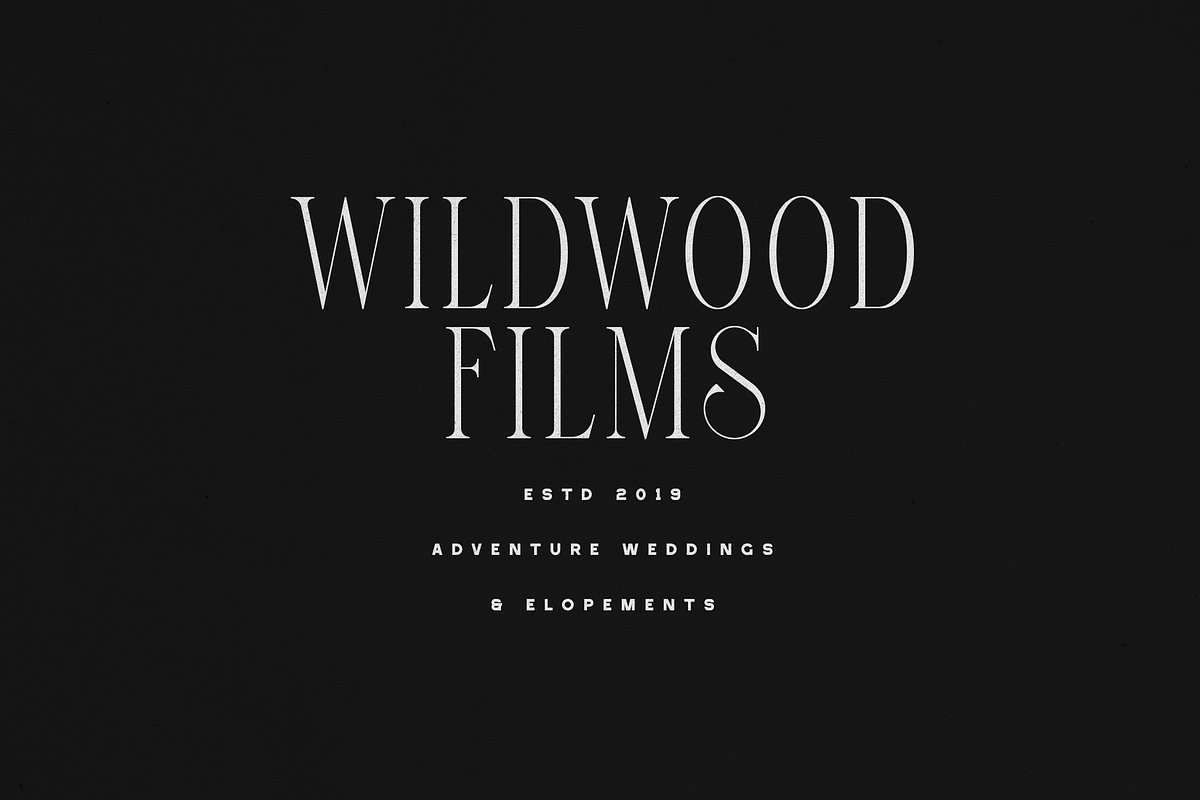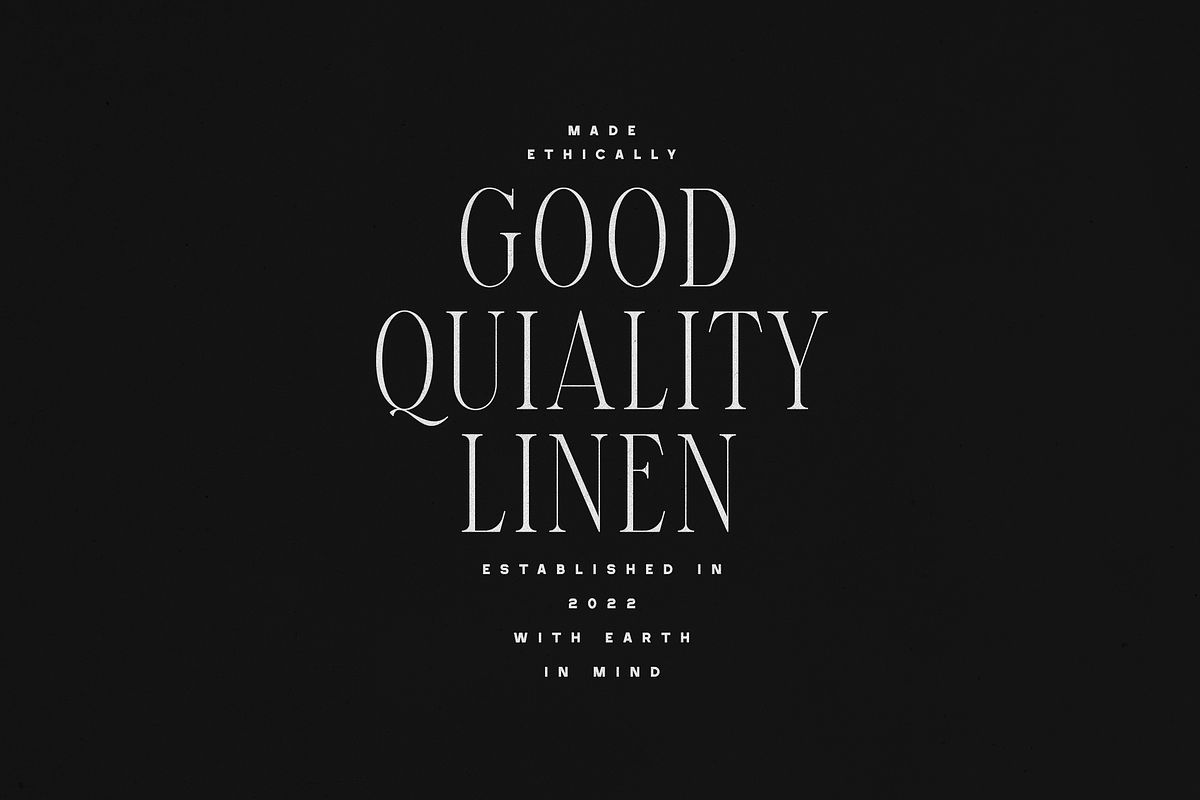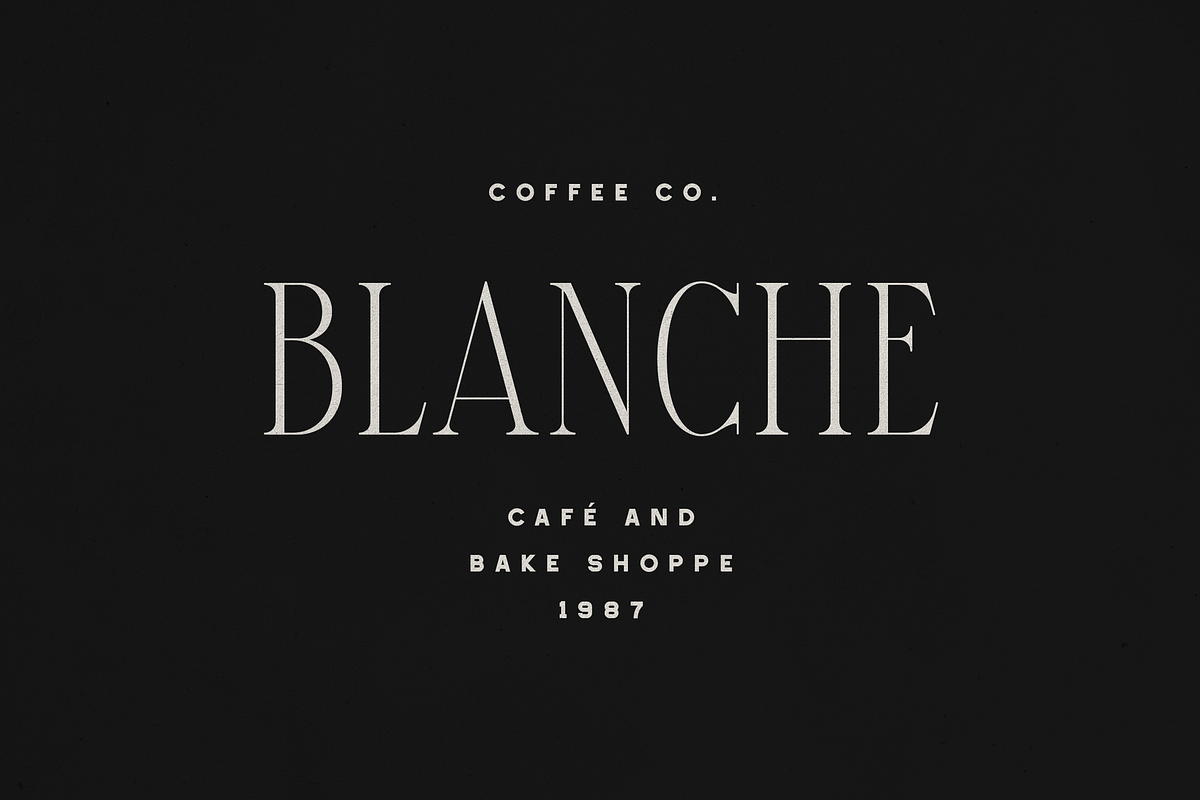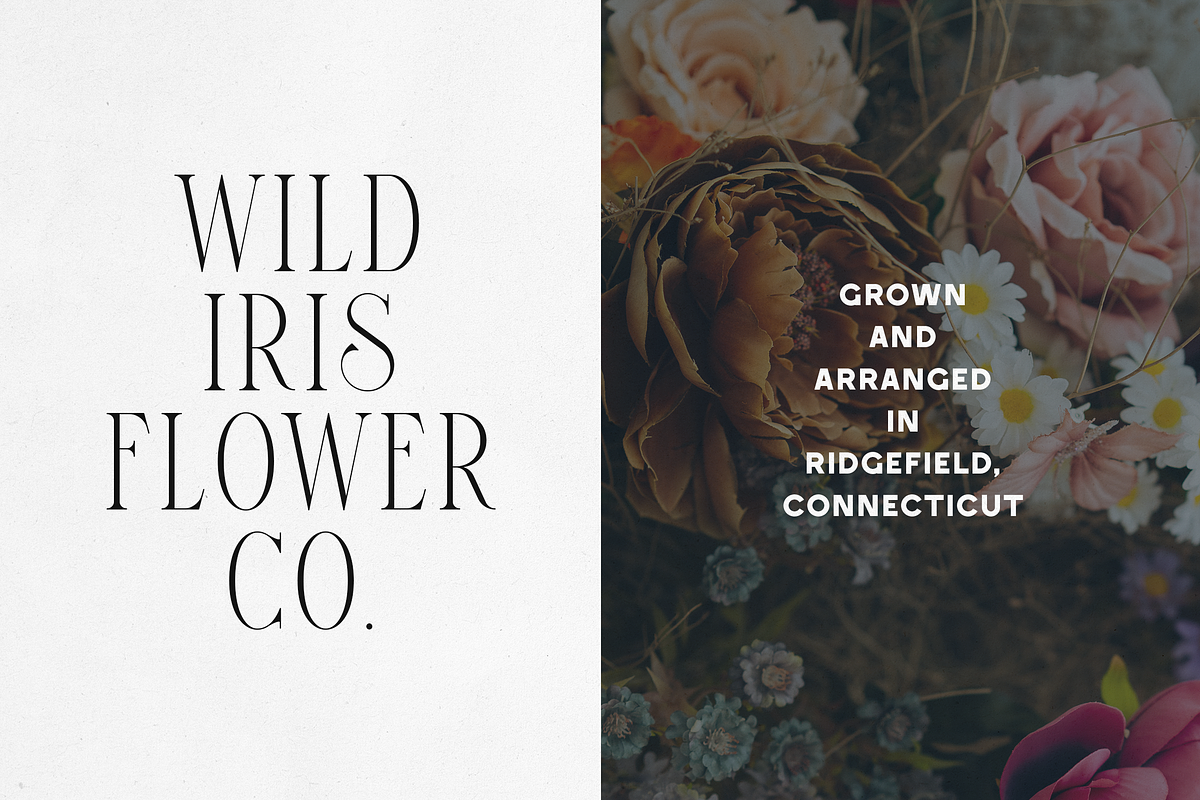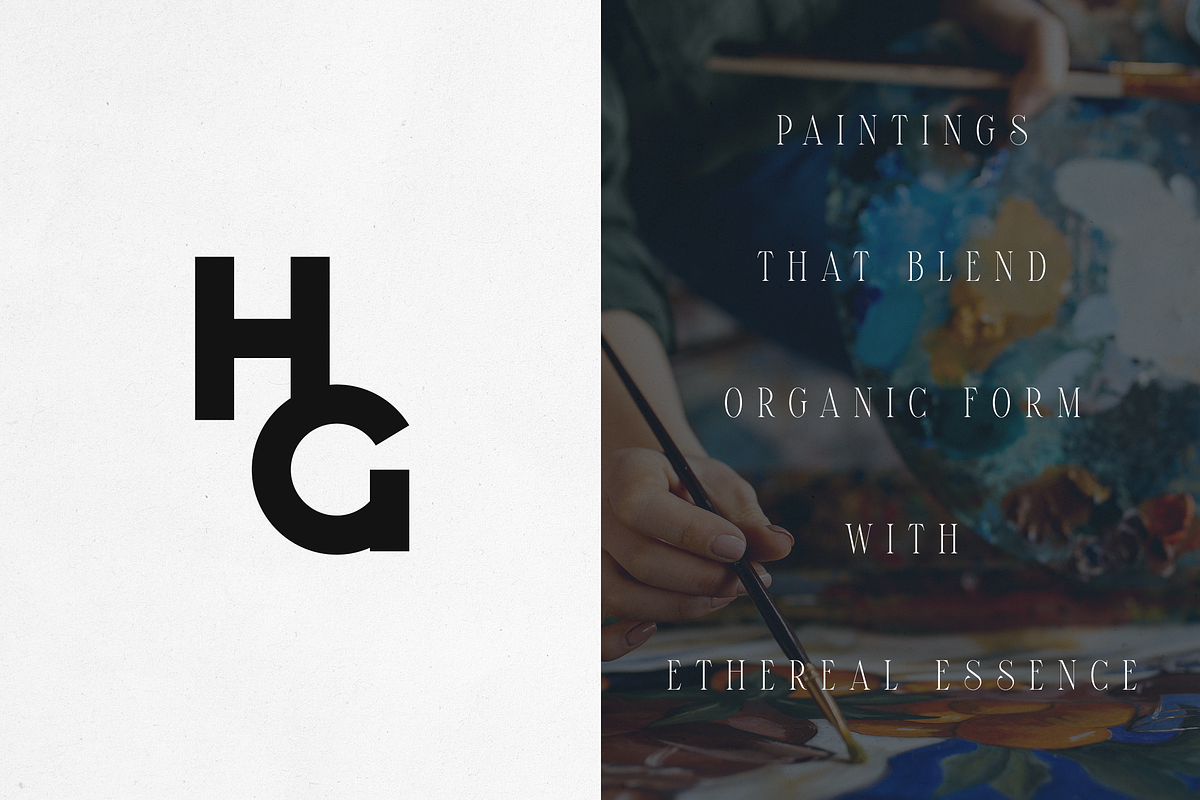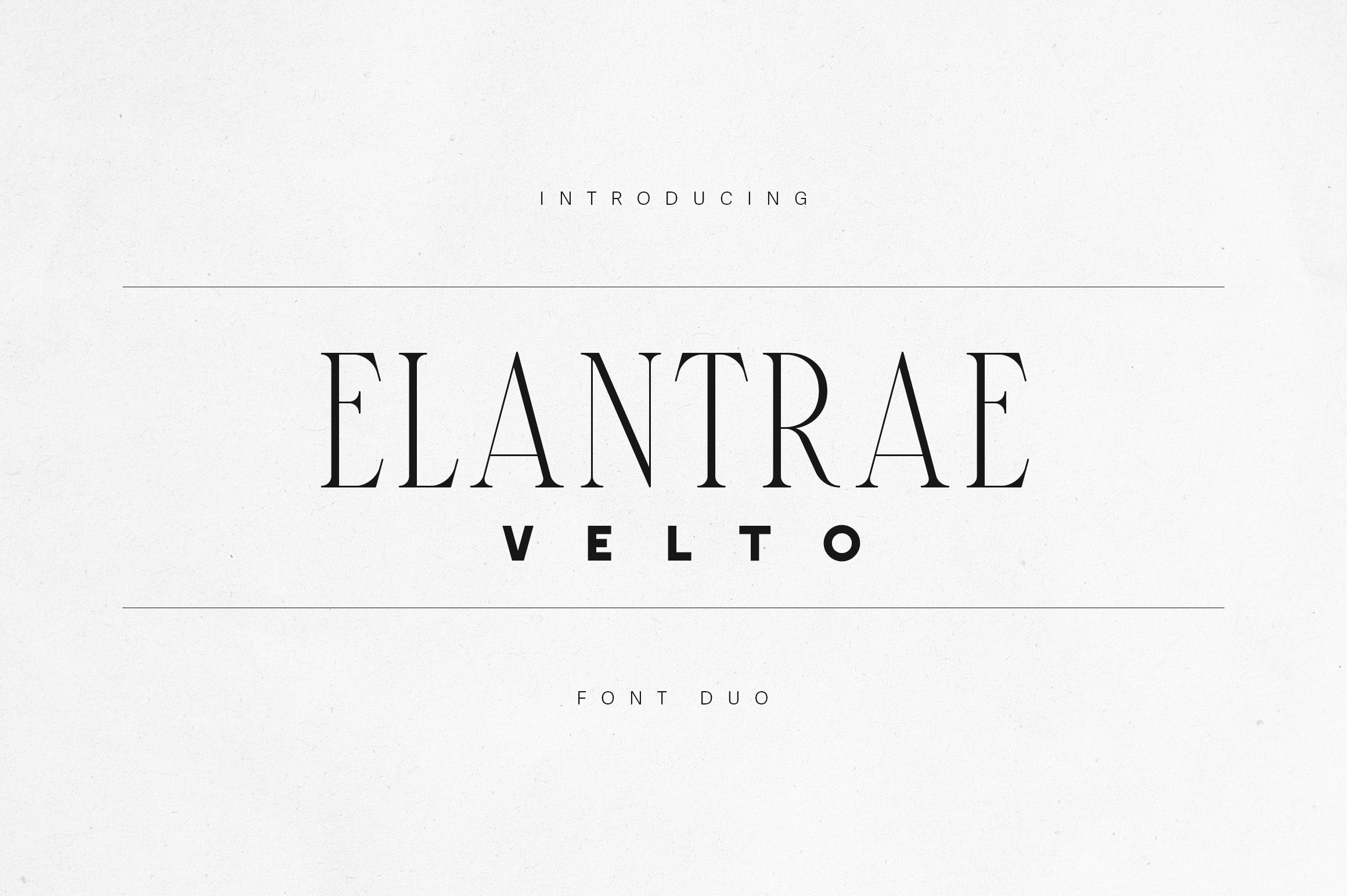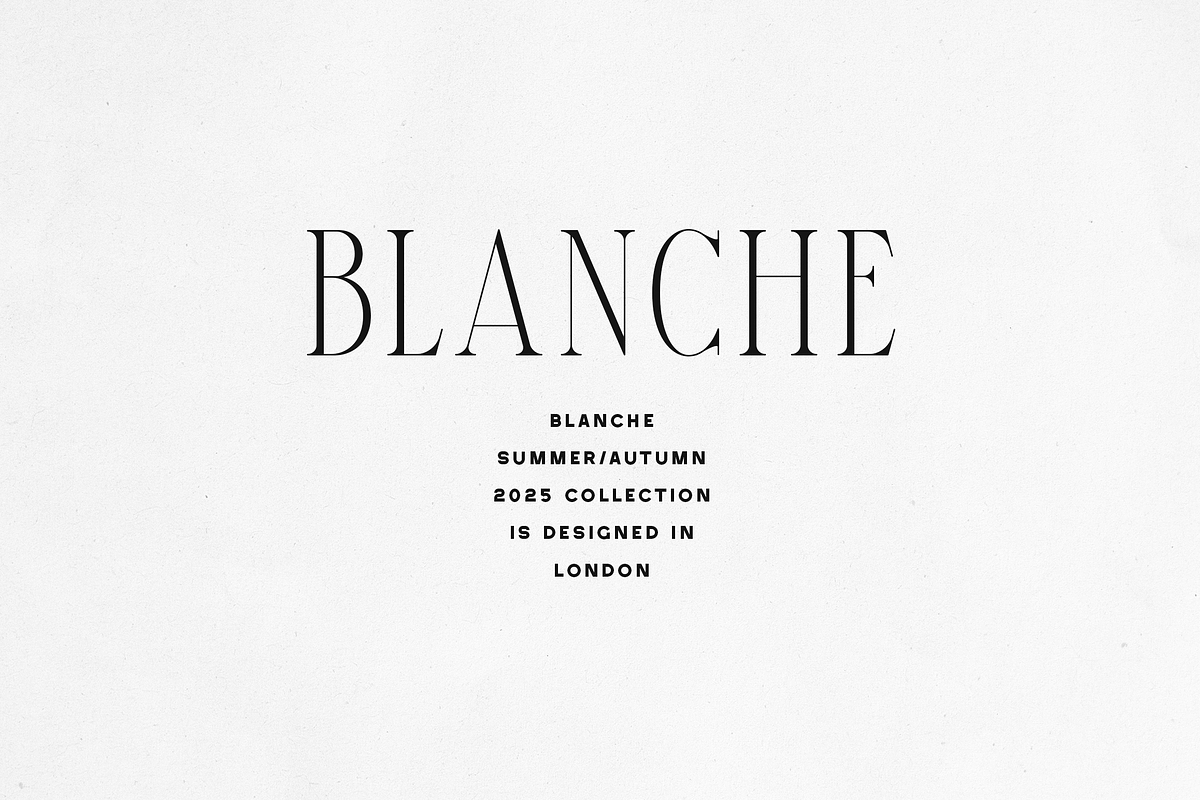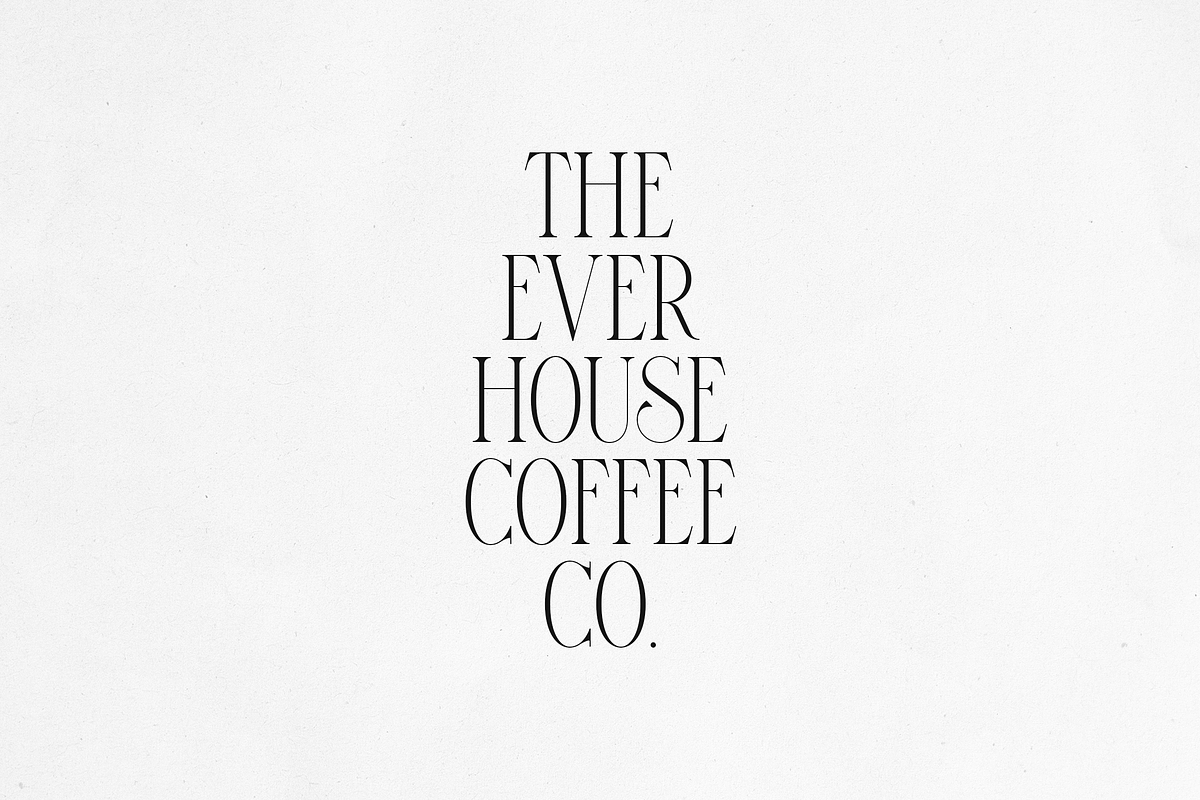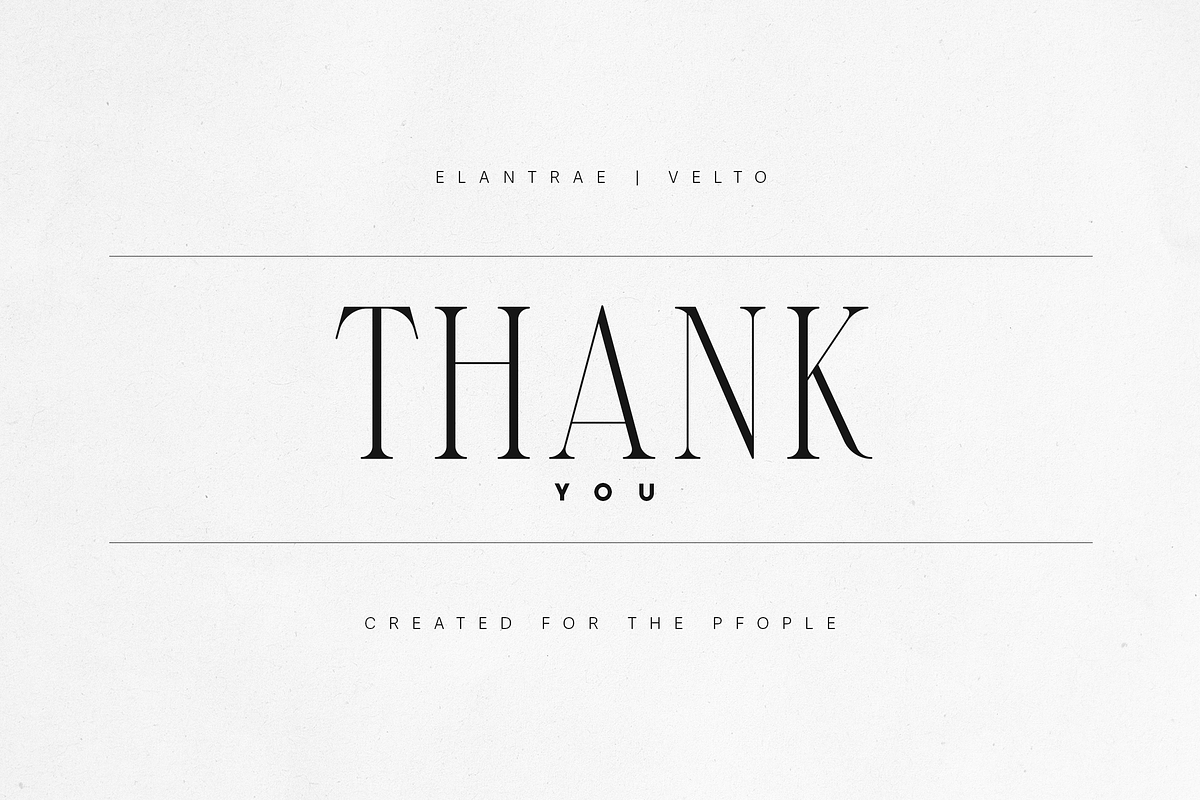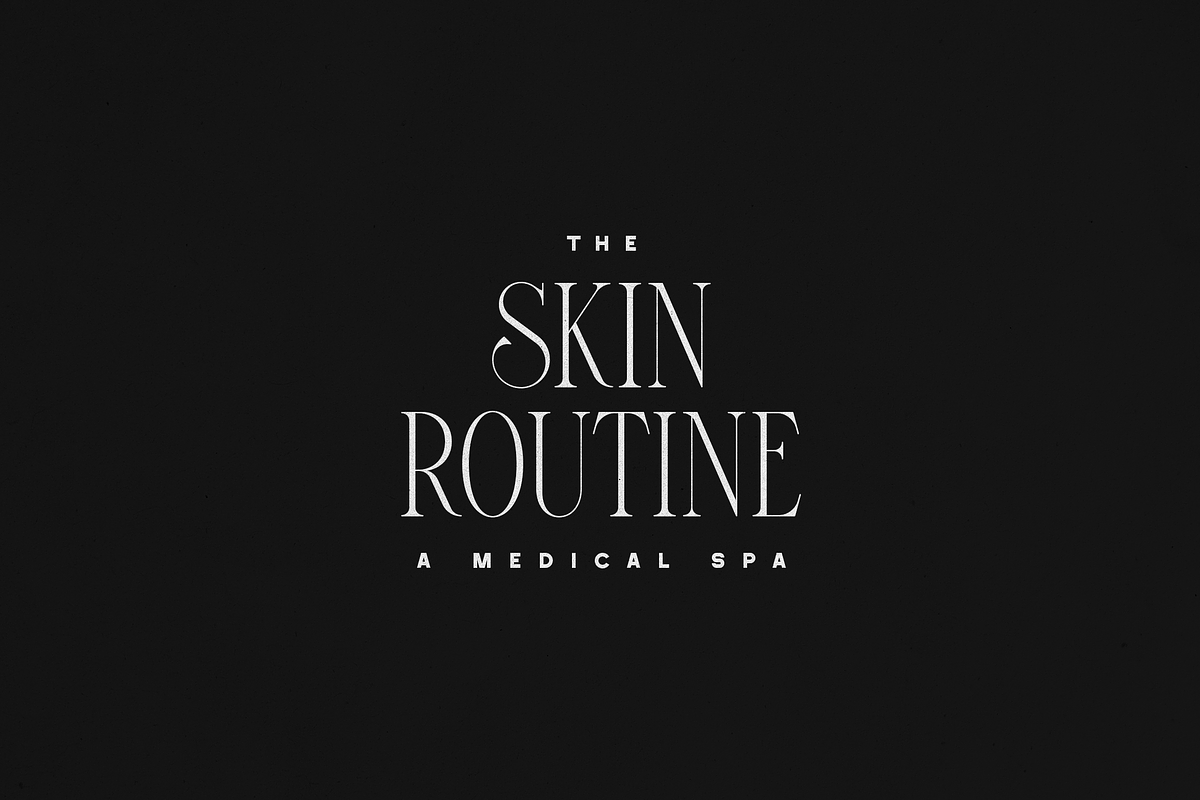
Elantrae & Velto – Modern Font Duo
Elantrae Velto – Modern Luxury Font Duo
Where sophistication meets timeless design.
Elantrae Velto is a refined serif and sans-serif font duo crafted to elevate high-end branding, editorial layouts, packaging, and digital design. The elegant contrast of Elantrae’s tall, graceful serifs and Velto’s clean modern forms brings balance between heritage and minimalism, making this duo perfect for designers seeking luxury, modernity, and versatility in one package.
Each letter was designed with meticulous precision — from Elantrae’s high-contrast strokes inspired by classic typography to Velto’s geometric foundation that complements it flawlessly. Together, they create a look that’s polished, editorial, and effortlessly sophisticated.
Ideal for:
- Luxury branding and fashion identities
- Editorial and magazine layouts
- Wedding and lifestyle logos
- Packaging, labels, and signature projects
- Websites, social media, and design portfolios
- Serif + Sans-Serif Duo (Elantrae & Velto)
- Multilingual support (87+ languages)
- Perfect kerning for professional typography
Elantrae Velto captures the essence of timeless design — versatile for minimalist branding yet bold enough for statement typography. Whether you’re creating a modern fashion brand, a boutique identity, or a magazine headline, this font duo ensures your message exudes confidence and class.